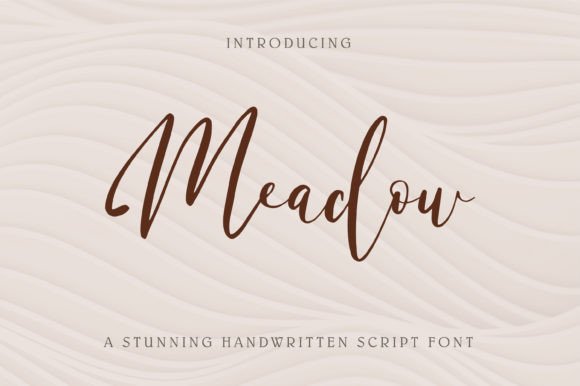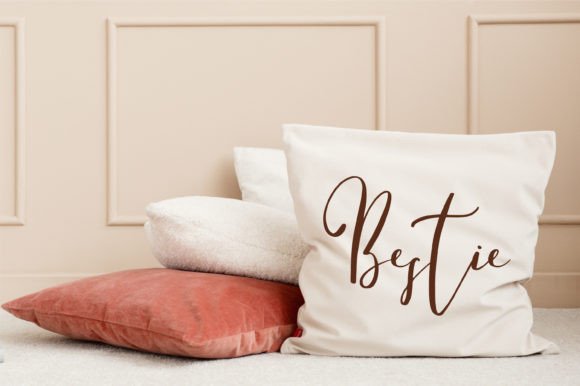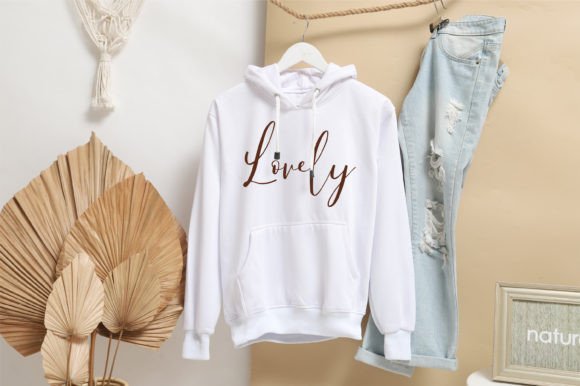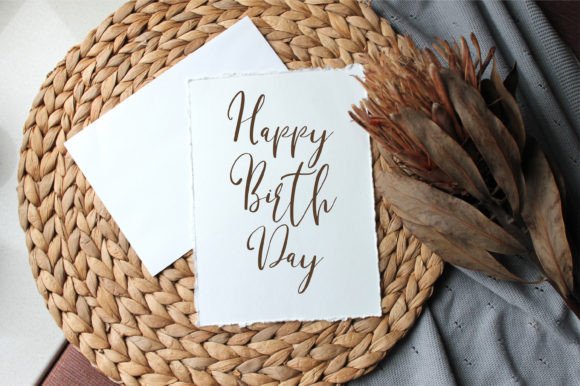
Meadow is a trendy and beautiful handwritten font. Use it for any design projects that require a lovely appearance! Meadow is perfect for logos, branding, wedding invitations, business cards, greeting cards, signboards, posters, magazines, social media, planner prints, crafting, and websites.